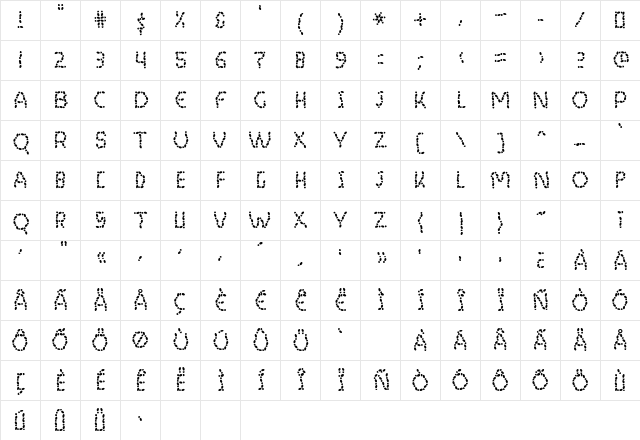
PutMyFootDown Regular
Design Context for PutMyFootDown
PutMyFootDown is a composed and adaptable typeface that performs quietly and consistently across a wide range of design contexts.